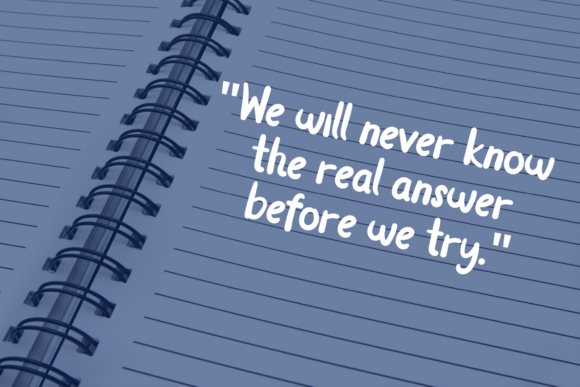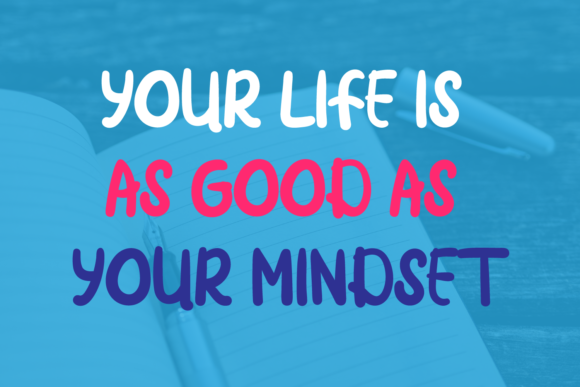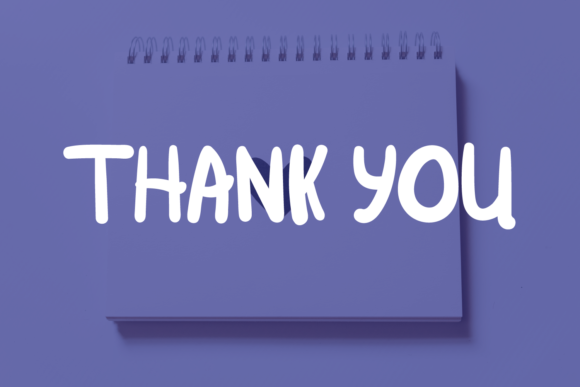
Introduction to Note and Notes Font
Note and Notes is a cute and quirky display font.
| 👤 Author | Planetz studio |
It will add an incredibly joyful touch to your designs Add this beautiful display font to each of your creative ideas and notice how it makes them stand out.
Key Features of Note and Notes Font
Why Choose Note and Notes Font?